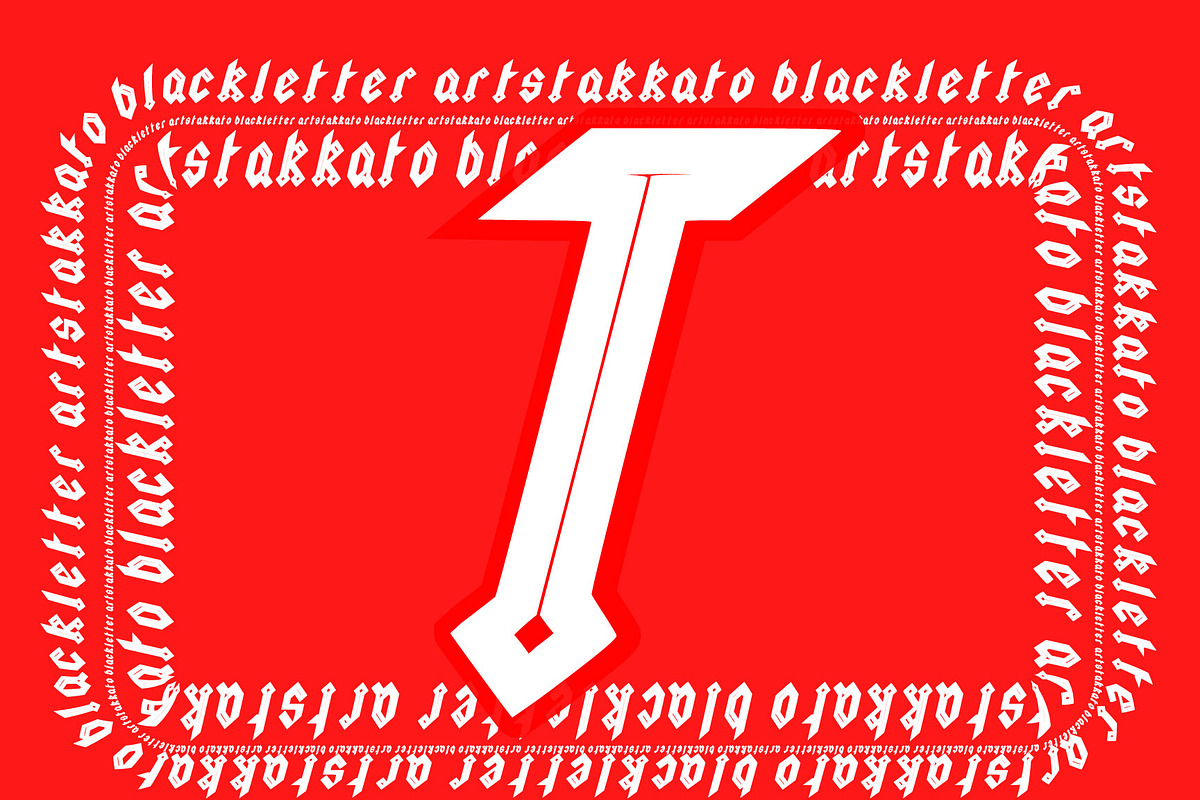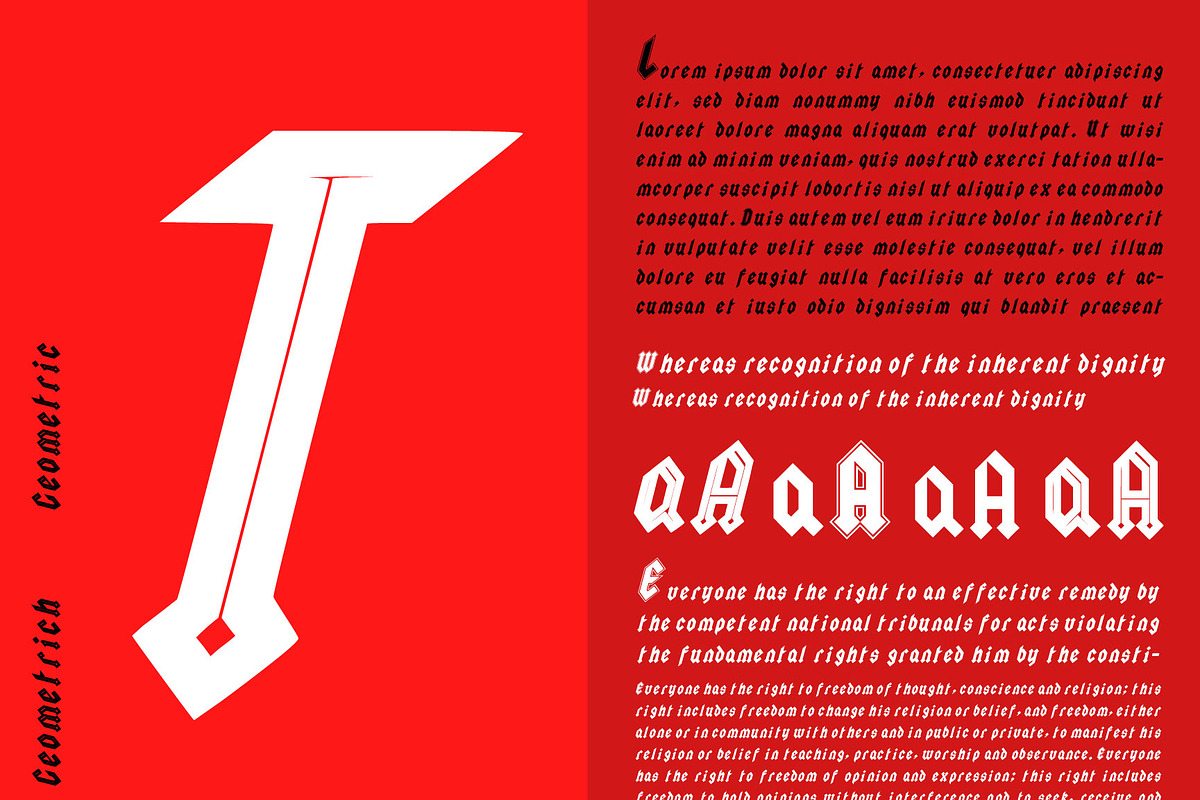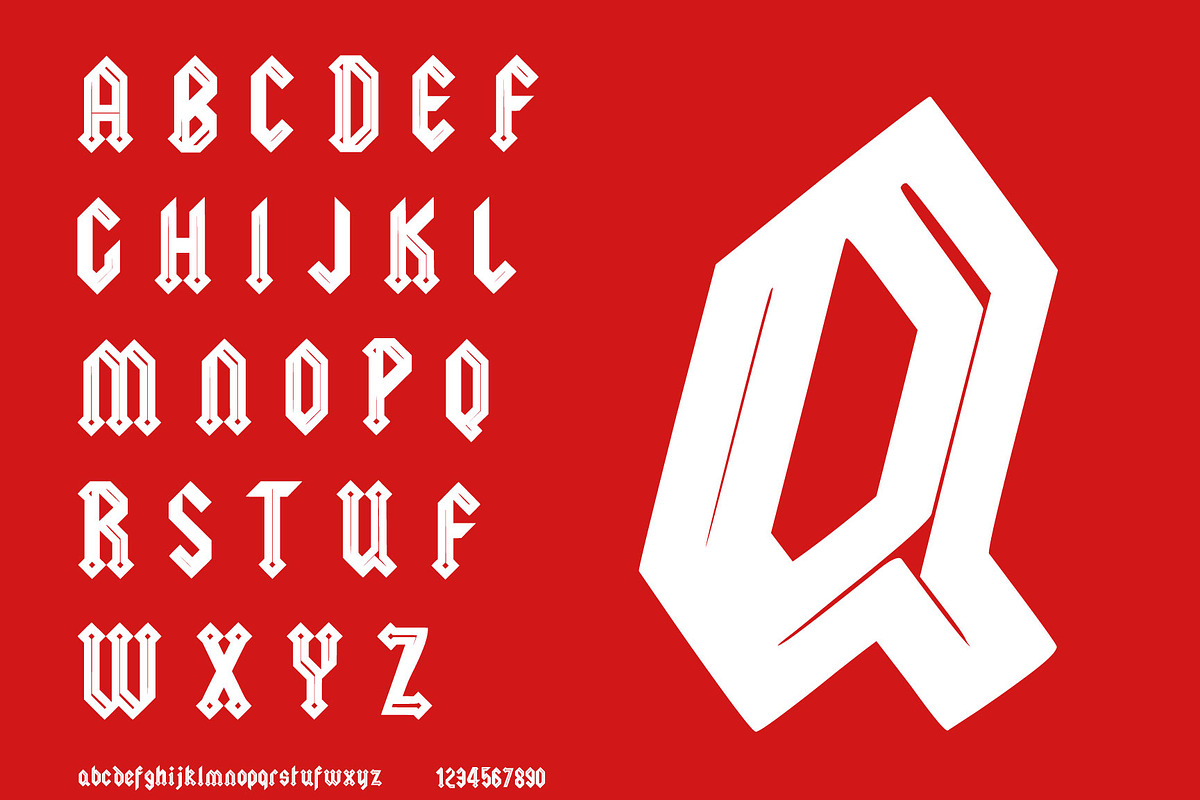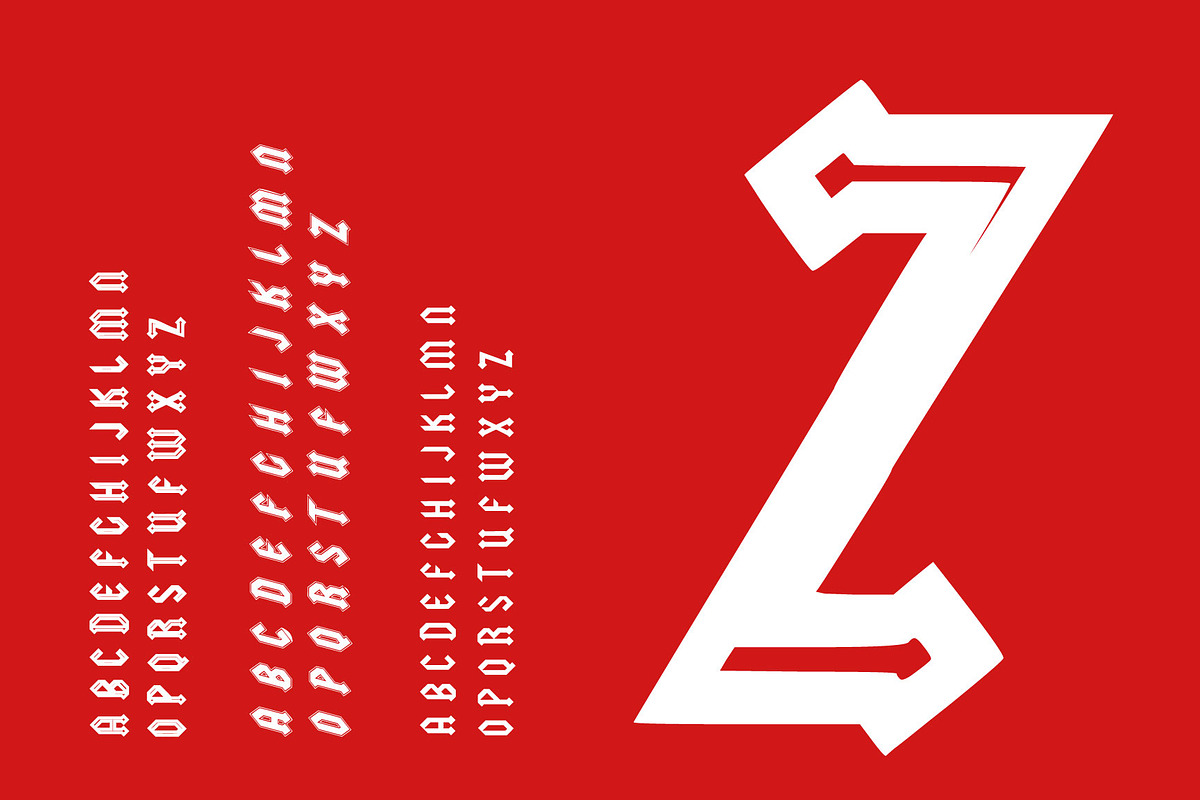
Stakkato Blackletter Font
the font of art
Blackletter (sometimes black letter or black-letter), also known as Gothic script, Gothic minuscule or Gothic type, was a script used throughout Western Europe from approximately 1150 until the 17th century.